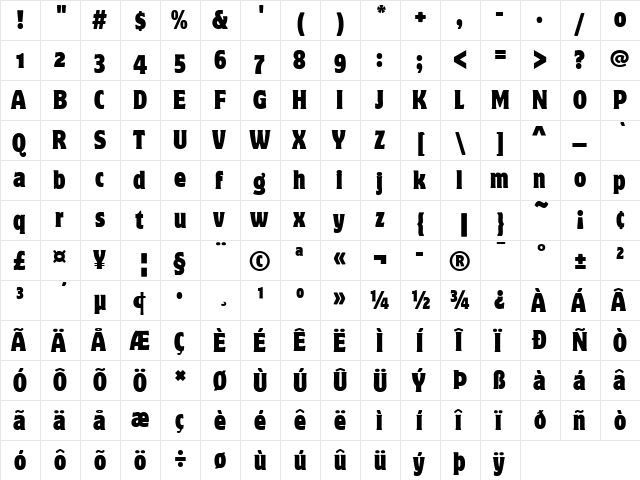
Motter Corpus ITC Condensed
Design Context for Motter Corpus ITC Typeface
Motter Corpus ITC offers clean, dependable letterforms without strong stylistic allegiance, making it a practical choice for designers who need flexibility. Its narrow stance lets it pack a punch even in space-constrained designs.